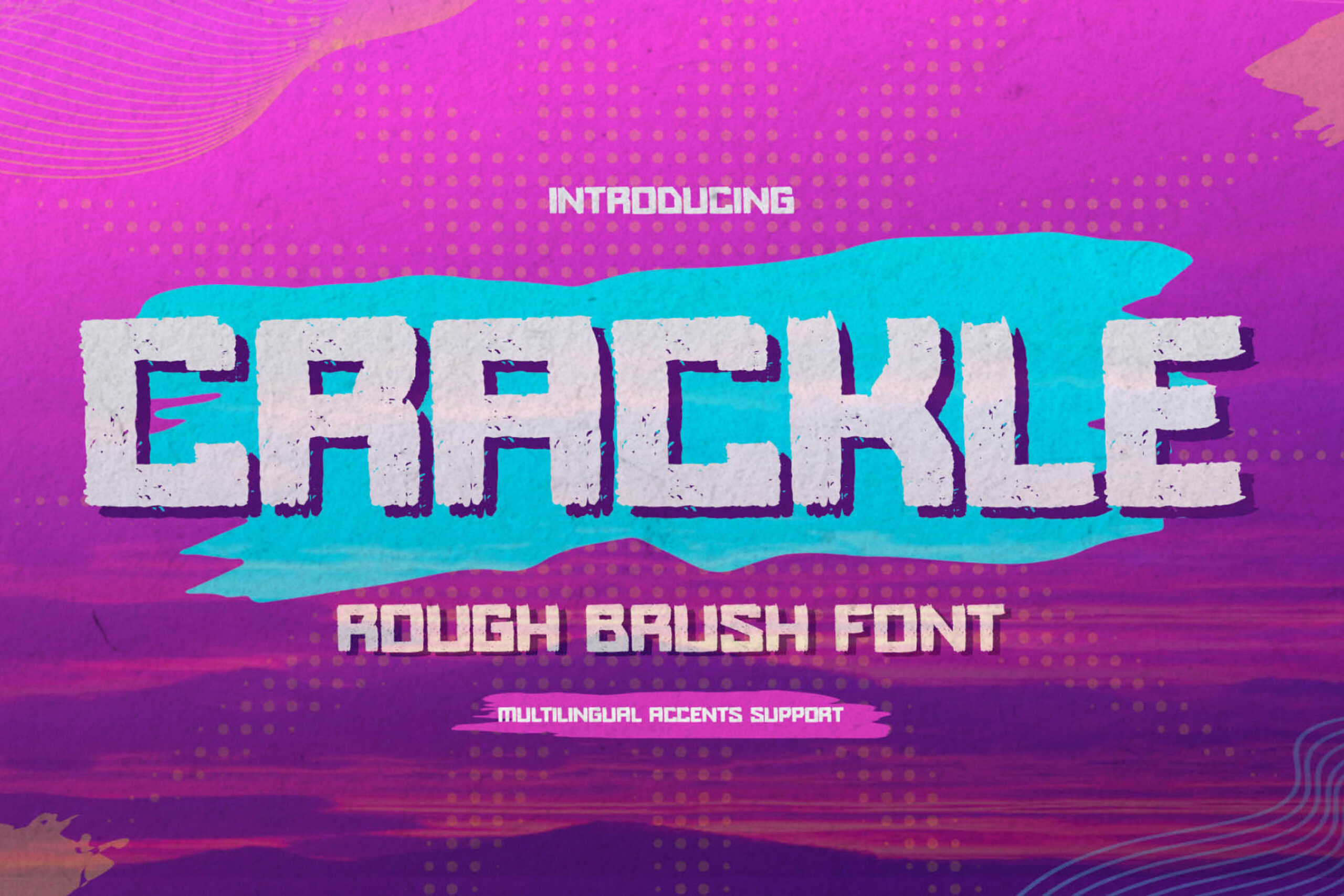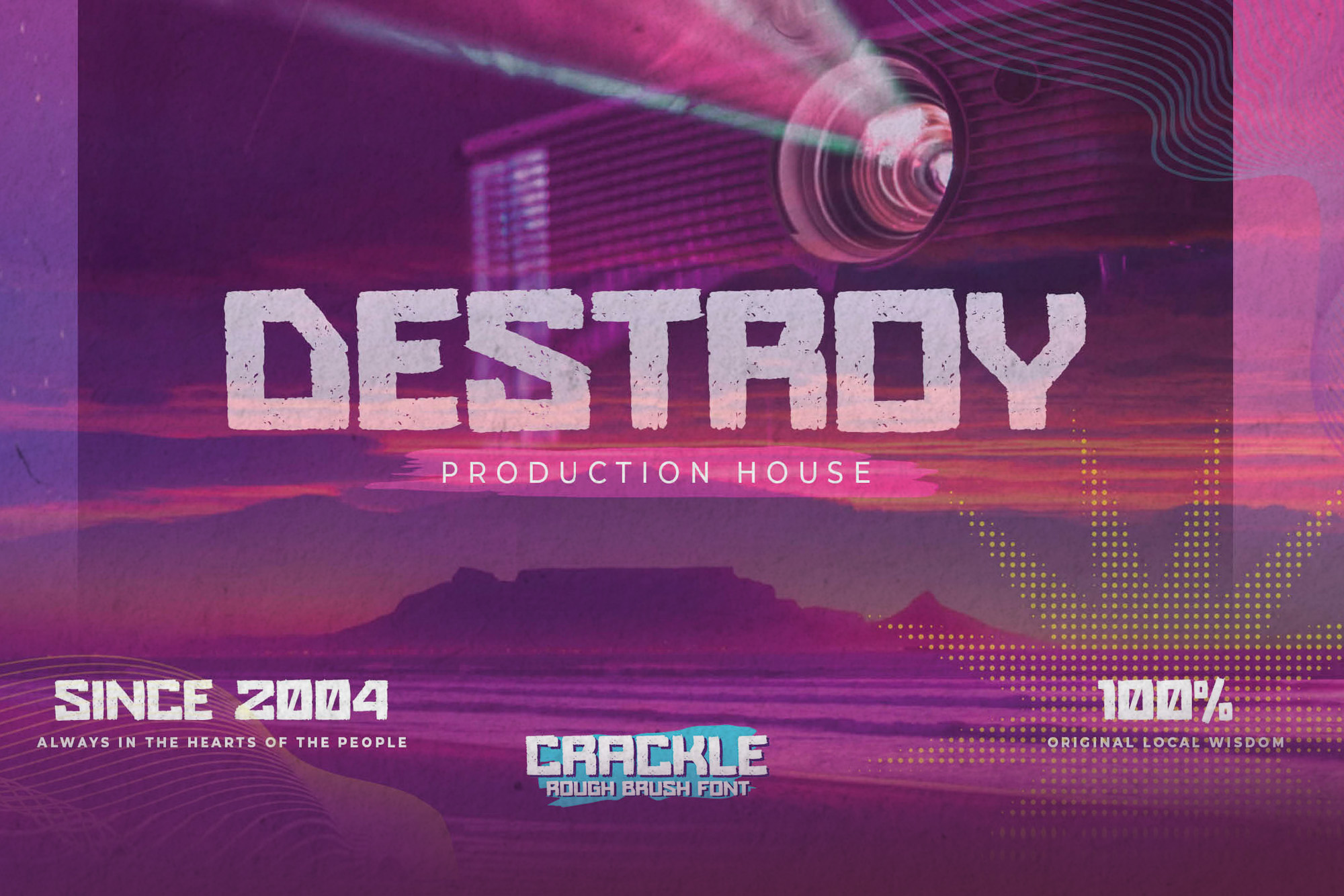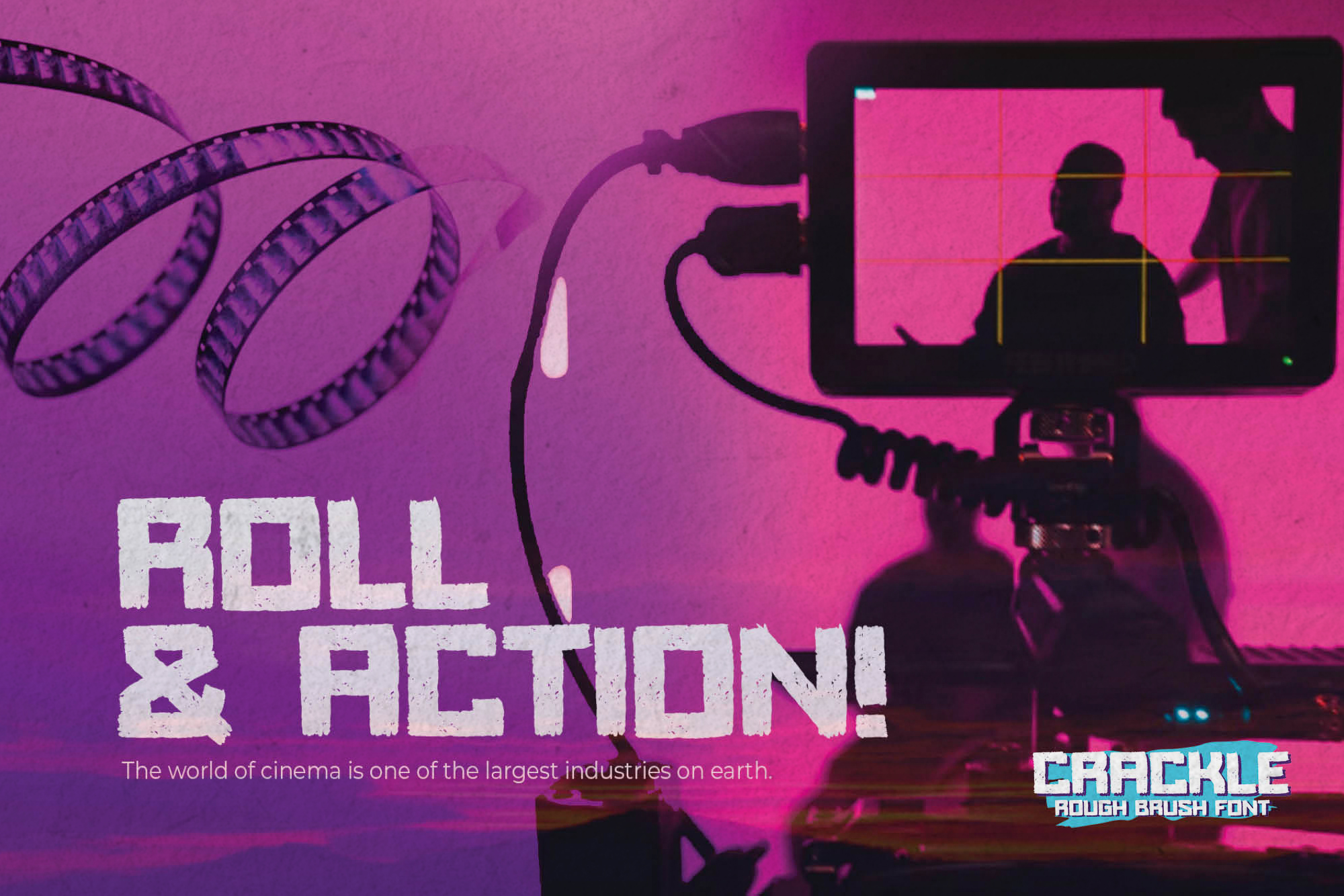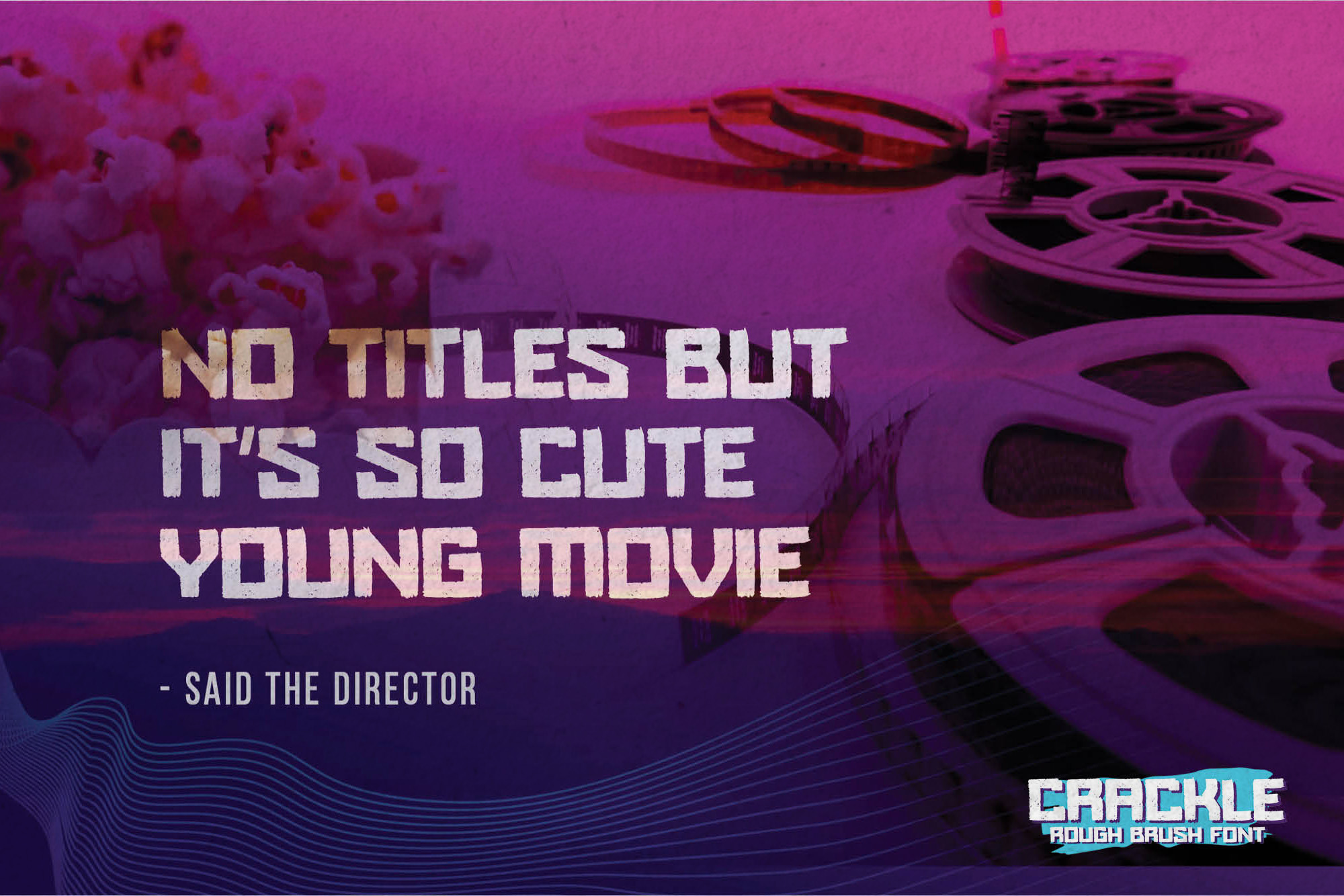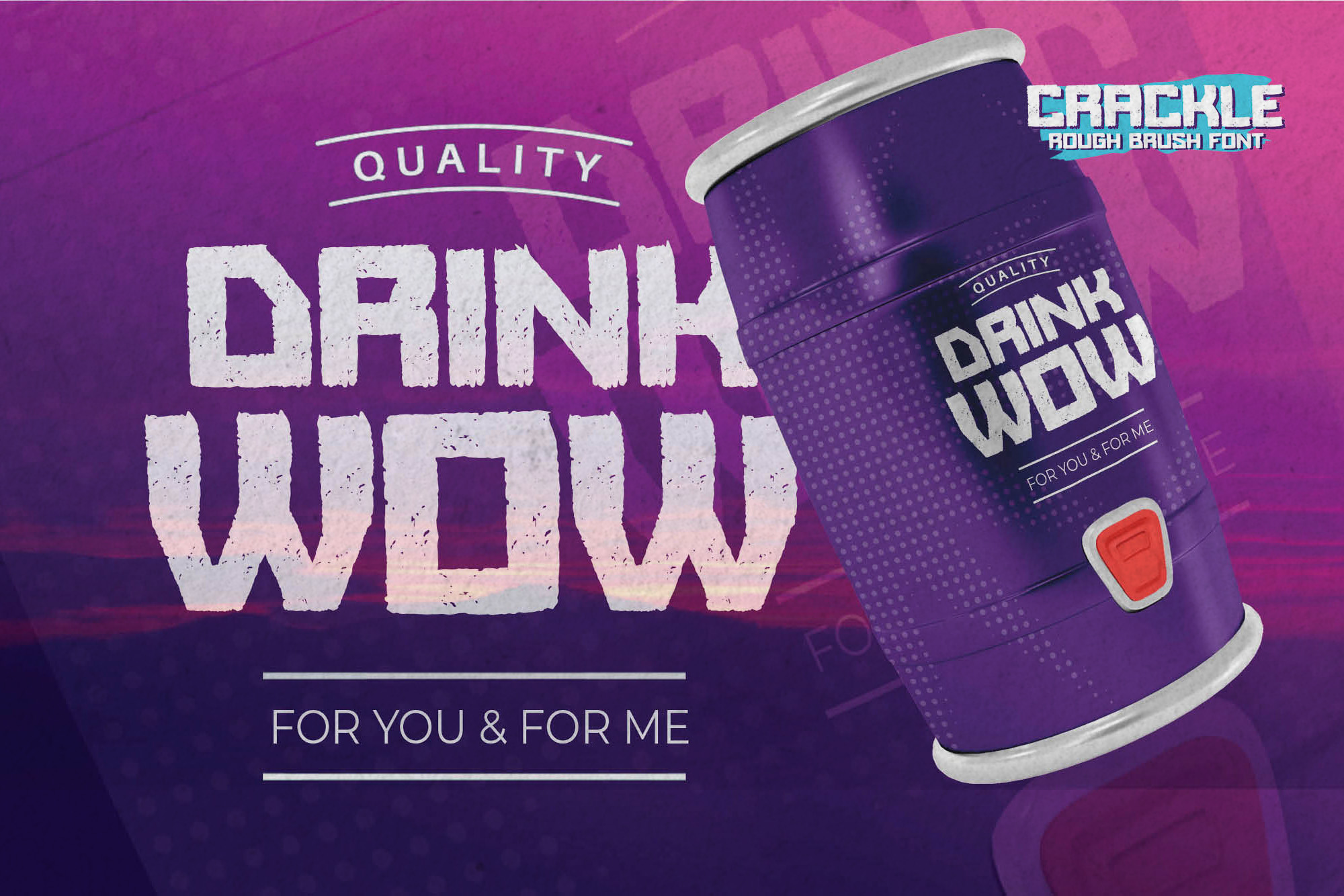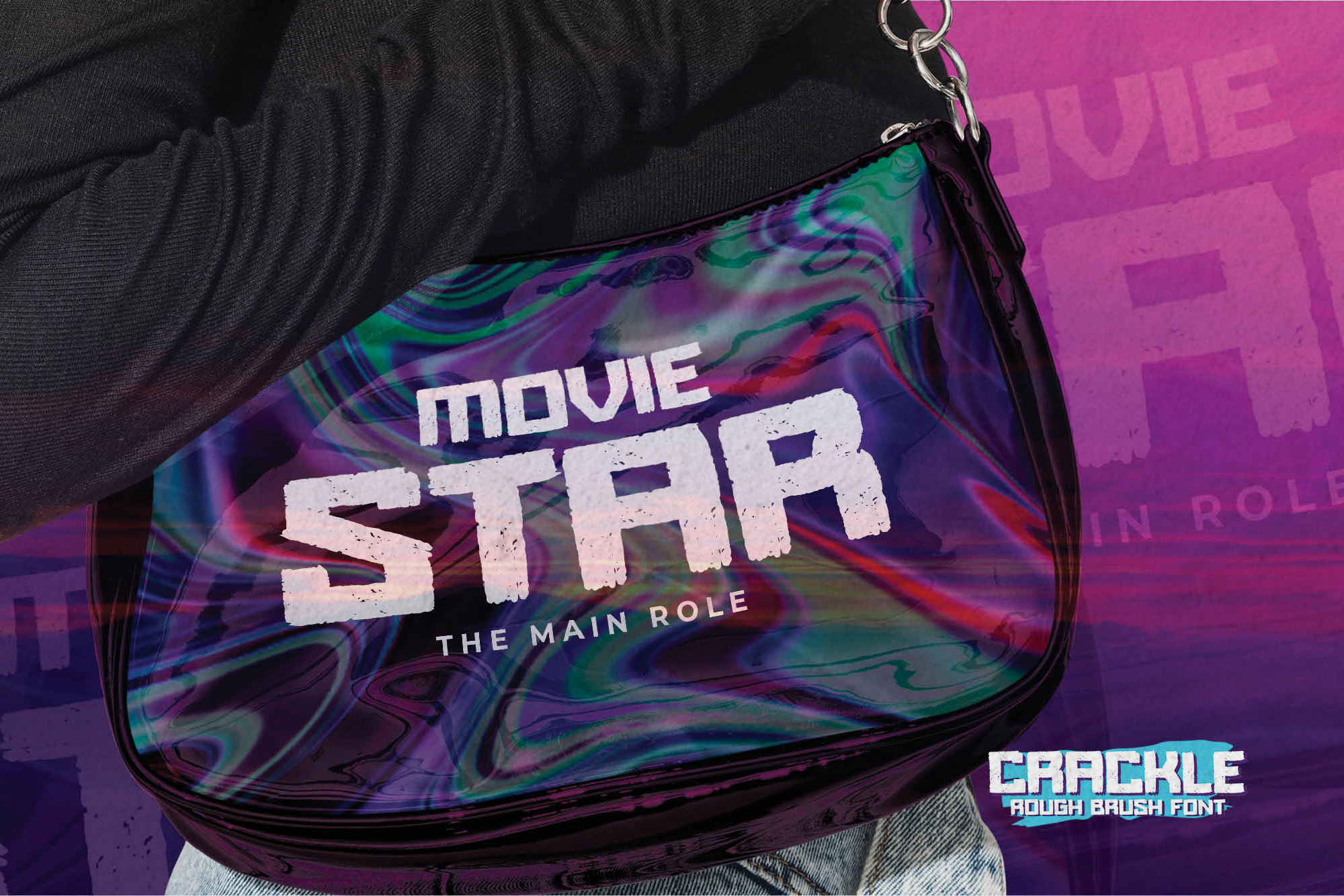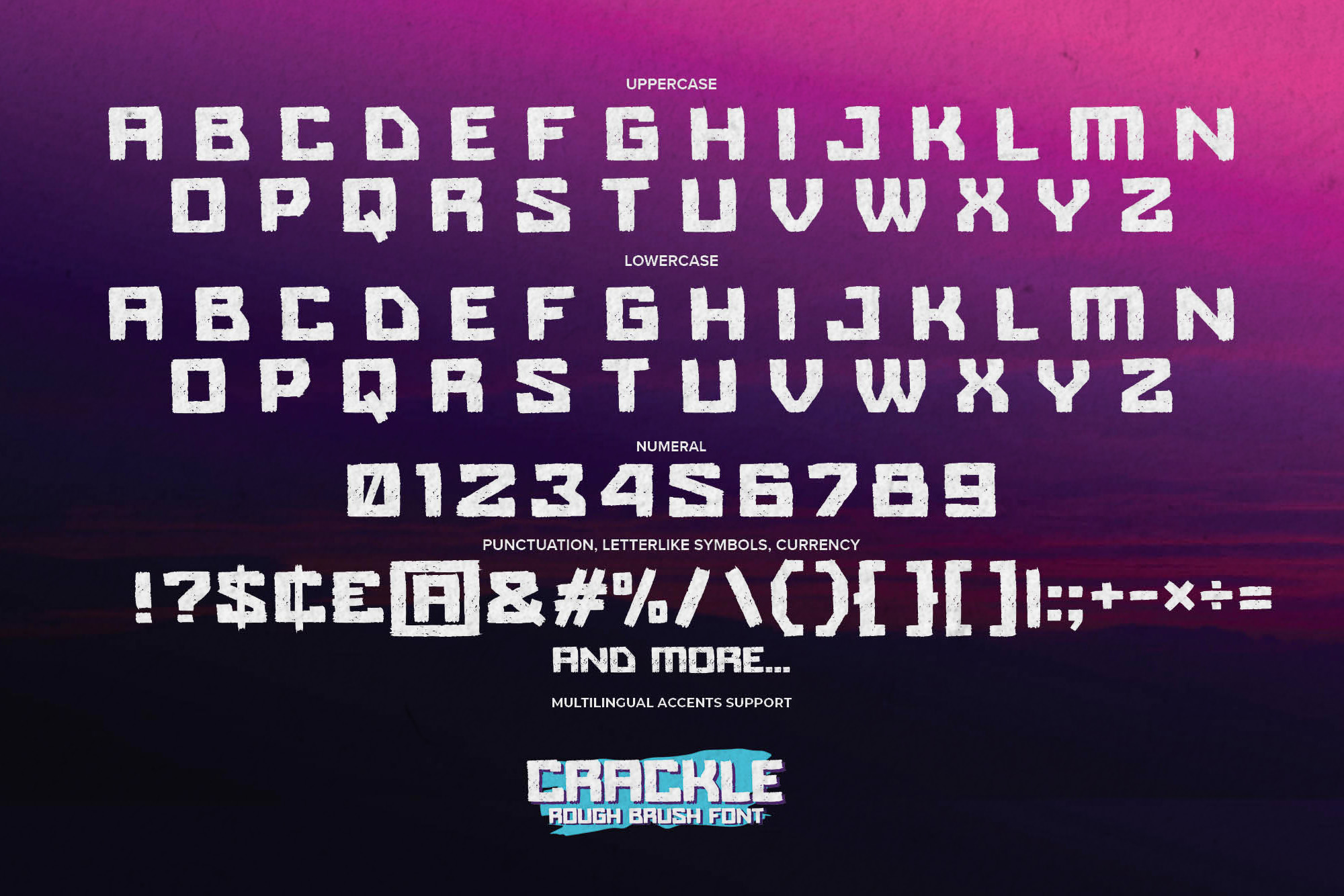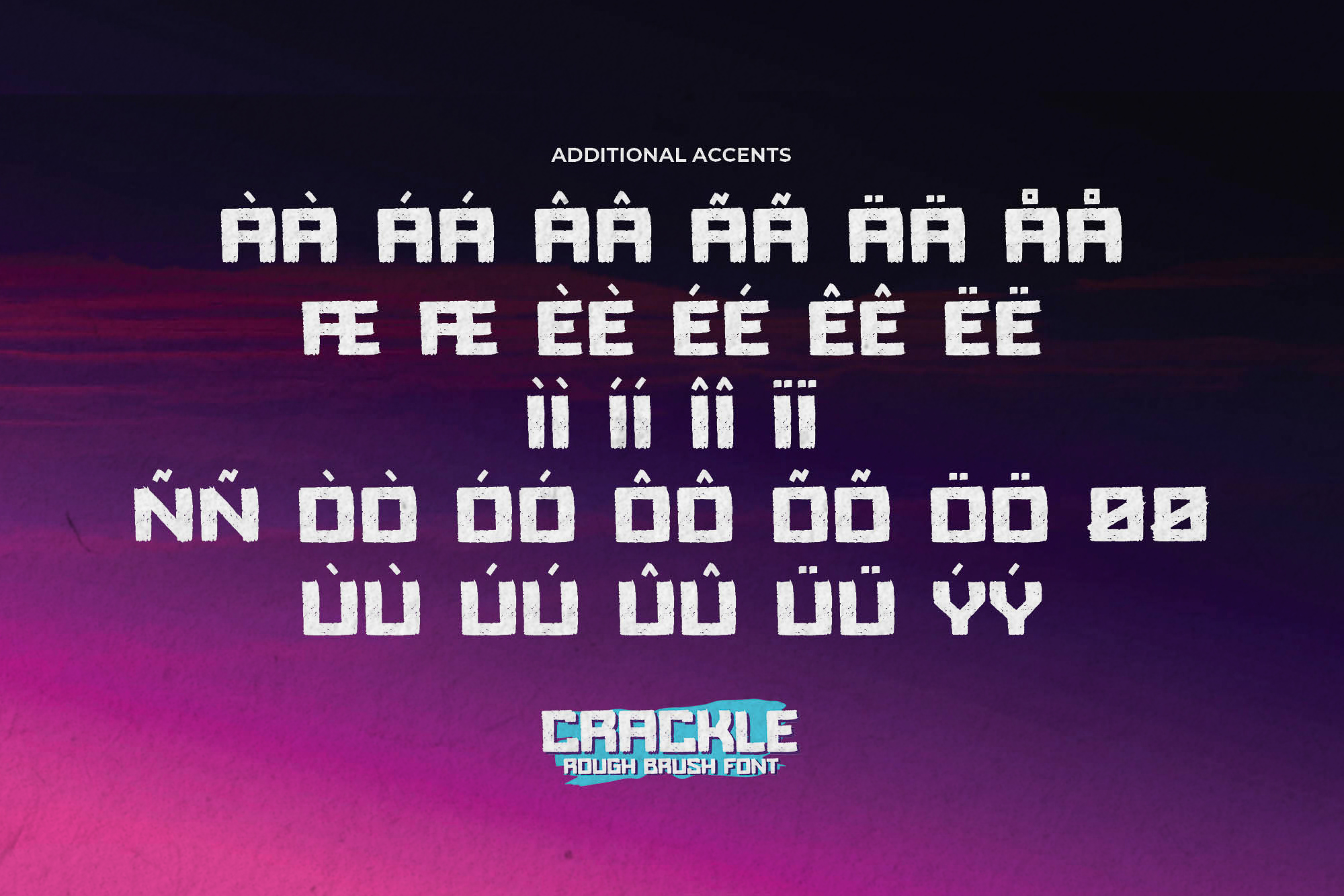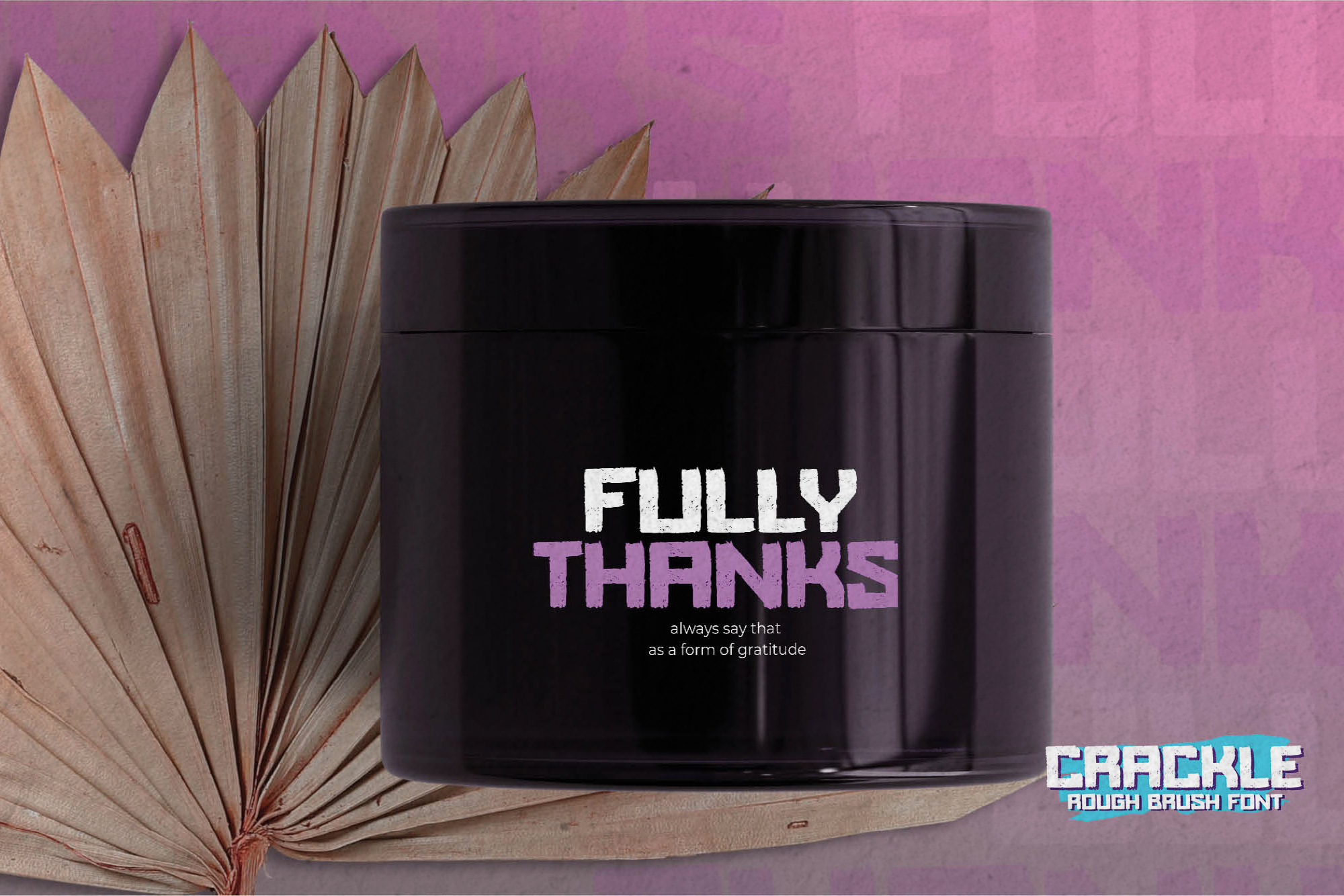
CRACKLE – Rough Brush Font
CRACKLE – Rough Brush Font, modern style and dramatic movement that is written casually and quickly.
The best for labels,poster,project , designs look modern, authentic and unique. It’s perfect for labels, quotes, posters, DIY projects, branding, packaging, greeting cards, websites, photography overlays, signs, scrapbooking, tags and so much more!  That is why CRACKLE has a textured, and strong characteristic more natural look.